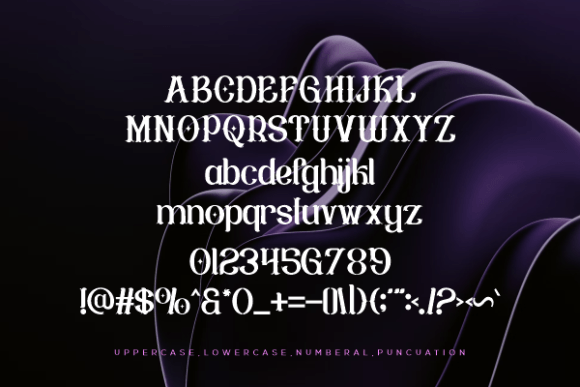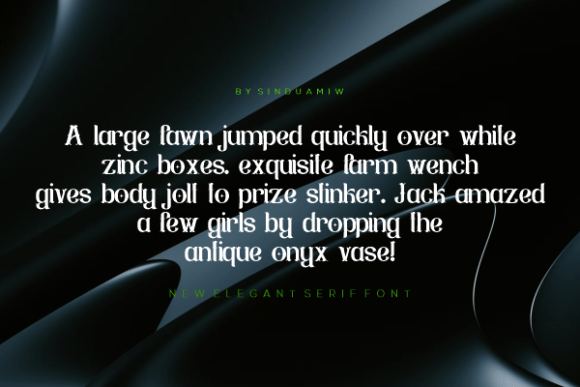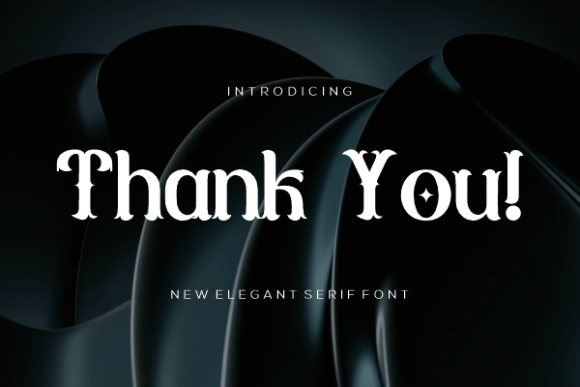
Discover the Elegance of Cholombus Font: A Versatile Slab Serif for Your Creative Projects
In the world of typography, fonts play a crucial role in conveying messages, evoking emotions, and adding aesthetic appeal to designs. Among the myriad of fonts available, Cholombus stands out as a unique and captivating slab serif font that has been gaining attention from designers and crafters alike. In this article, we’ll delve into the features, uses, and benefits of Cholombus font, and explore how it can elevate your creative projects.
What is Cholombus Font?
Cholombus is an elegant and bold slab serif font that boasts an incredibly versatile style. Its distinctive design combines the classic appeal of serif fonts with the modern edge of slab serifs, making it an excellent choice for a wide range of applications. Whether you’re working on wedding invitations, stationery art, social media posts, or any other design project, Cholombus is sure to make a lasting impression.
Key Features of Cholombus Font
- Elegant and Bold Design: Cholombus font features a unique blend of elegance and boldness, making it perfect for designs that require a touch of sophistication and personality.
- Versatile Style: This font is incredibly versatile, allowing you to use it across various design projects, from formal events to casual social media posts.
- Slab Serif Design: The slab serif design of Cholombus adds a modern twist to traditional serif fonts, making it an excellent choice for designers looking for a fresh and contemporary look.
Uses of Cholombus Font
Cholombus font is suitable for a wide range of design projects, including:
- Wedding Invitations: Add a touch of elegance and sophistication to your wedding invitations with Cholombus font.
- Stationery Art: Create beautiful and unique stationery art with Cholombus font, perfect for letters, cards, and other paper crafts.
- Social Media Posts: Use Cholombus font to create eye-catching and engaging social media posts that stand out from the crowd.
- Branding and Packaging: Cholombus font can also be used for branding and packaging designs, adding a touch of personality and elegance to your products.
Benefits of Using Cholombus Font
By incorporating Cholombus font into your design projects, you can enjoy several benefits, including:
- Unique and Memorable Designs: Cholombus font helps you create unique and memorable designs that stand out from the crowd.
- Elegance and Sophistication: Add a touch of elegance and sophistication to your designs with Cholombus font.
- Versatility: Use Cholombus font across various design projects, from formal events to casual social media posts.
In conclusion, Cholombus font is an excellent choice for designers and crafters looking for a versatile and elegant slab serif font. Its unique design, versatility, and range of uses make it an ideal addition to any design project. Whether you’re working on wedding invitations, stationery art, social media posts, or any other creative project, Cholombus font is sure to impress. Thank you for visiting our fonts page, and we hope you’ve enjoyed discovering the beauty of Cholombus font.